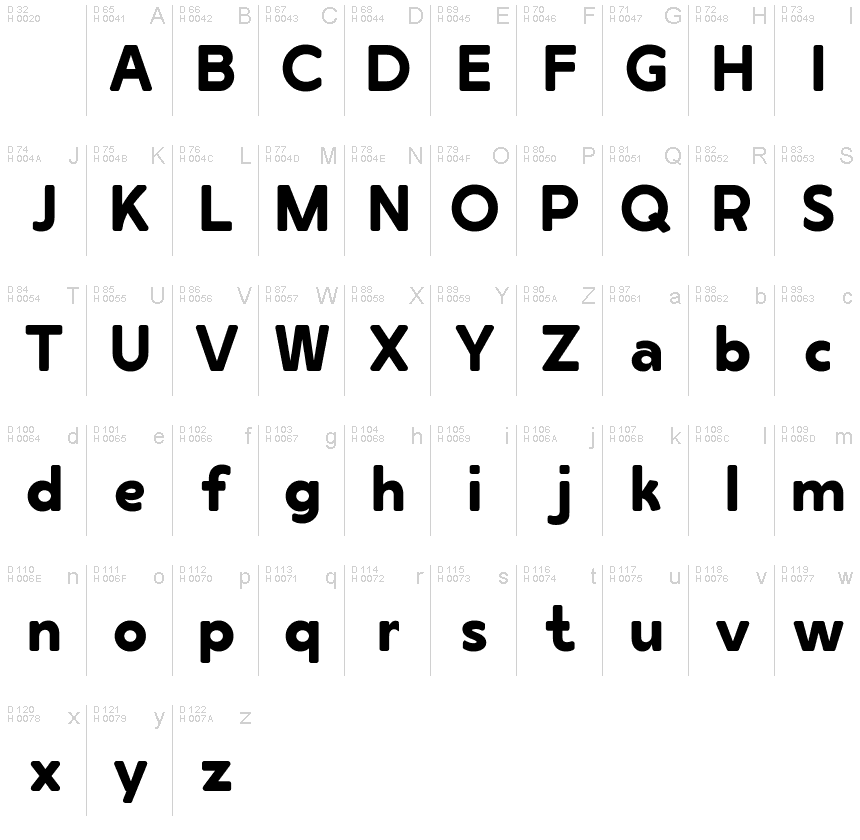
Gulka Free Font Bold
Discover the robust charm of Gulka Bold, a standout member of the Gulka font family designed by Maulana Creative. This contemporary sans serif is not just bold in weight but bold in character, offering a playful yet authoritative presence that breathes life into every design. Its rounded, full-bodied letters infuse your projects with an approachable and energetic vibe, perfect for those seeking to make an impactful statement.
Gulka Bold's versatility extends across various creative realms. Whether crafting eye-catching logos, dynamic social media graphics, compelling movie titles or engaging book covers, this font stands out. It excels equally in short bursts of text or detailed copy due to its excellent readability. Additionally, with over 100+ language support and delightful ligatures, Gulka Bold ensures your message resonates globally.
Elevate your creative work to new heights and let Gulka Bold be the voice of your next masterpiece.